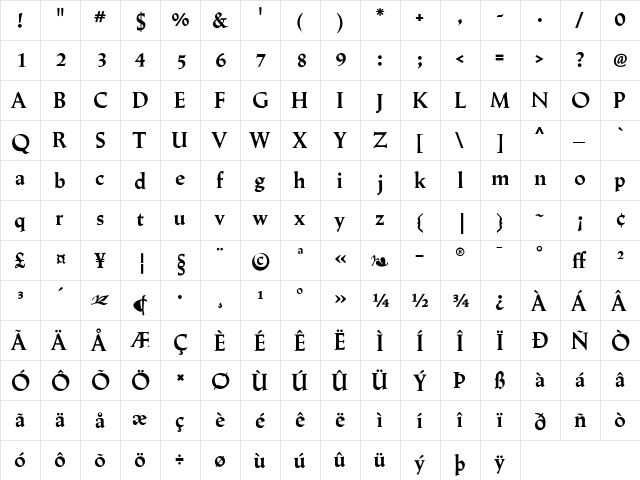
TribunusSG Regular
| Foundry | Spiece Graphics |
Design Context for TribunusSG Typeface
TribunusSG offers clean, dependable letterforms without strong stylistic allegiance, making it a practical choice for designers who need flexibility.
Pro Tip: Use TribunusSG in both headline and body roles to test its range before committing to a single application.